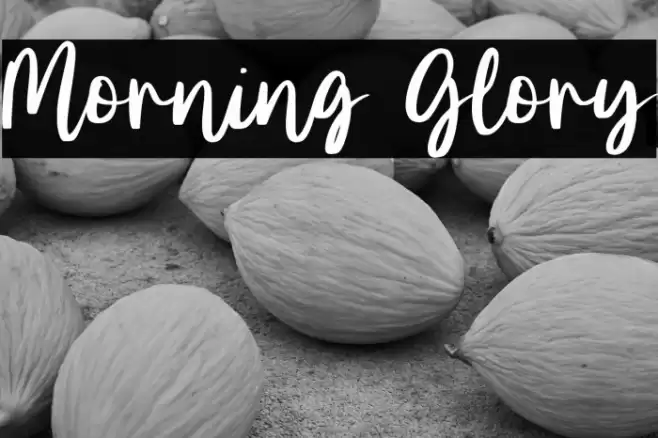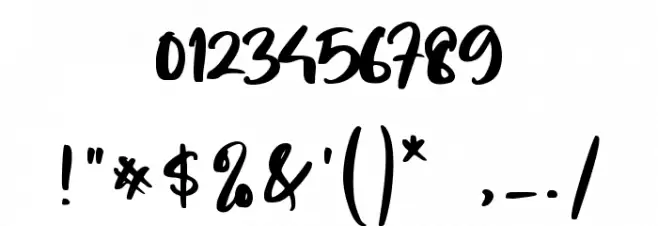
Morning Glory Font
Morning Glory Description
This font exudes a playful and energetic vibe with its bold, flowing script style. The characters are interconnected, giving a sense of continuity and movement. Each letter features a distinct, hand-drawn quality, with varying stroke widths that add a dynamic feel. The uppercase letters are particularly expressive, with dramatic loops and curves, while the lowercase letters maintain a more consistent flow. The numerals and special characters complement the alphabet with similar stylistic elements, ensuring a cohesive look across all text. This font is perfect for projects that require a personal touch or a lively, informal tone.
A bold, flowing script font with a playful, hand-drawn style from Regular fonts.
- Proposed Projects: Ideal for greeting cards, invitations, branding, social media graphics, and any project needing a personal, lively touch.
- Character Spacing: Tight
- Use Case: Logos, Headlines, Invitations